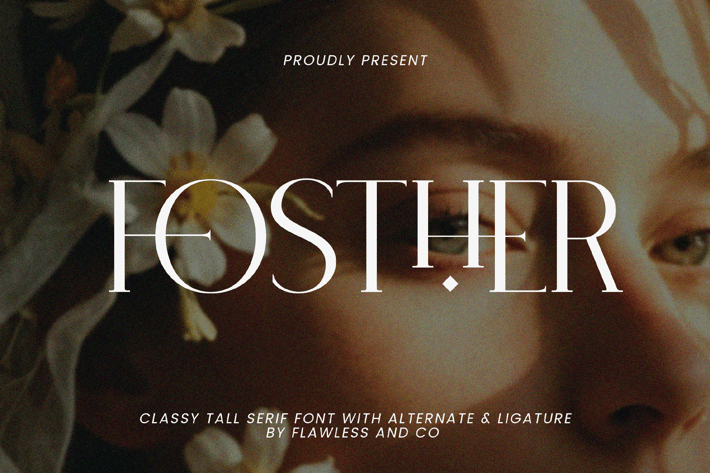
Fosther - Modern Elegant Serif Font
Introducing "Fosther" a refined serif font combining timeless elegance and modern design. With its sleek letterforms and beautifully crafted ligatures, Fosther is perfect for adding a touch of sophistication to your projects. This font is suitable for any graphic design, such as branding materials, wedding stationery, product packaging, branding and logo, etc.